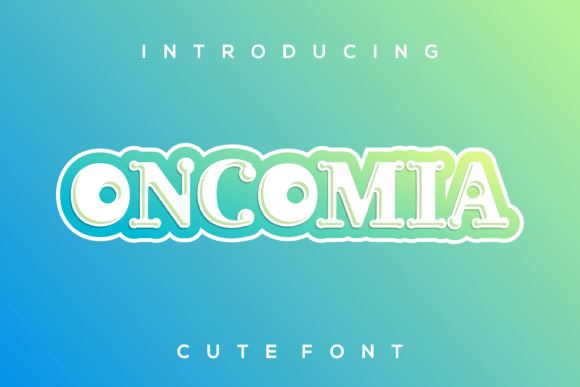
Jump into the world of striking and distinctive typography with Oncomia Font, a display font that oozes with personality and pizzazz. Designed by the talented lelevien, Oncomia is a visual treat that will transform your designs into captivating masterpieces. This font is not just a collection of letters; it's an arsenal of visual artistry that will leave an unforgettable mark on your audience.
With its bold and commanding presence, Oncomia Font is perfect for creating logotypes that demand attention. Whether you're crafting a brand identity, designing posters, or creating social media graphics, Oncomia will elevate your designs to new heights. Its sharp edges and dynamic curves create a sense of movement and energy that will make your words leap off the page.
But Oncomia Font is not just about aesthetics; it's also incredibly versatile. Its carefully crafted characters exude a timeless elegance that blends seamlessly with various design styles. Whether you're working on a retro-inspired project or a cutting-edge contemporary design, Oncomia will effortlessly adapt and shine.
Take your designs to the next level with Oncomia Font, the ultimate choice for creating logotypes that resonate with your audience. Its bold and captivating style will turn your words into visual symphonies, leaving a lasting impression that lingers in the minds of your viewers. Unleash the power of Oncomia and witness the transformation of your designs into works of art.